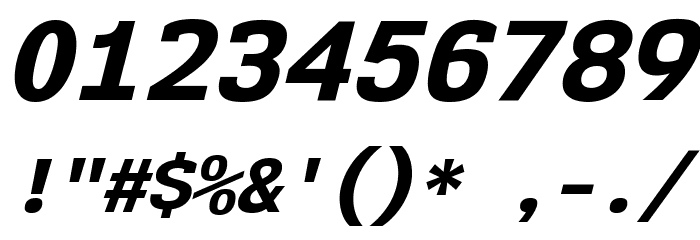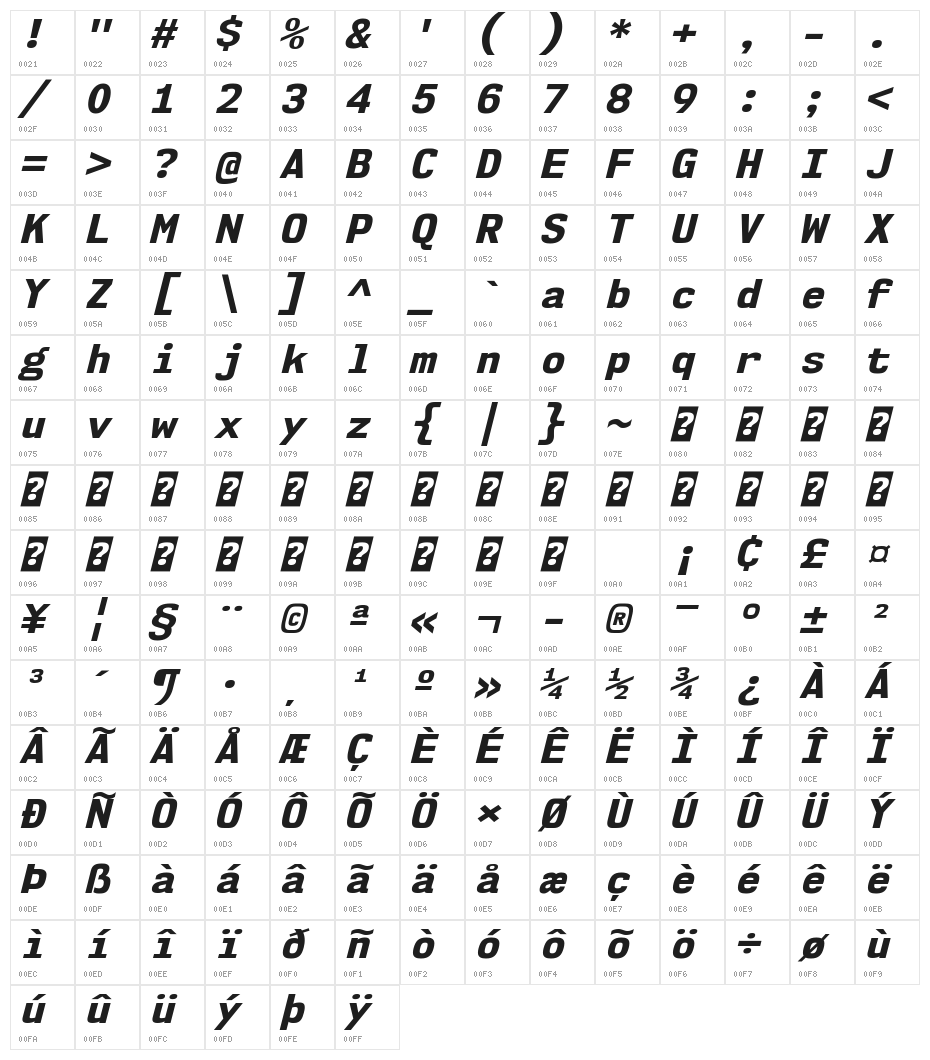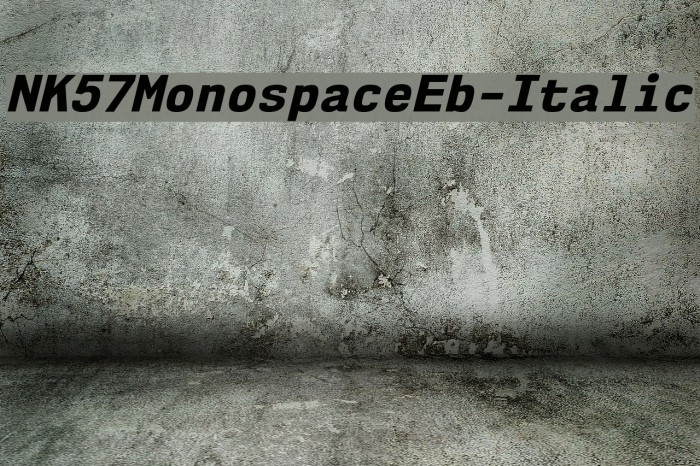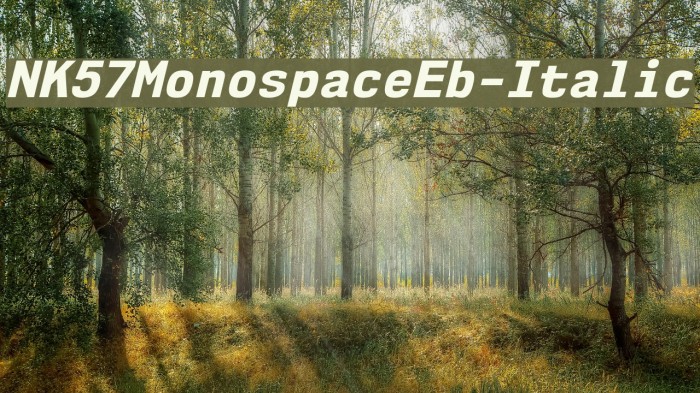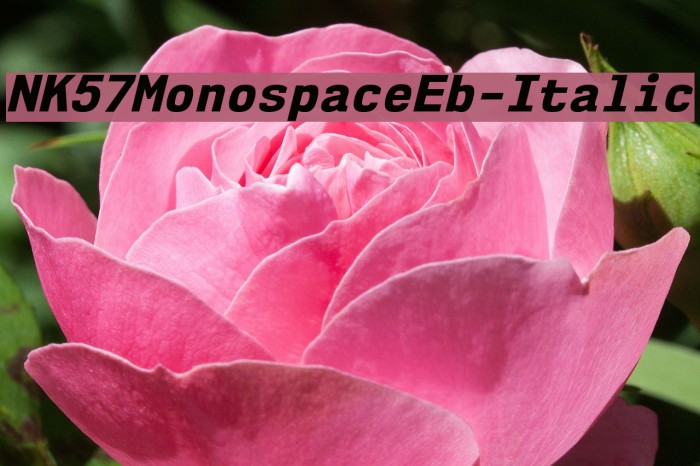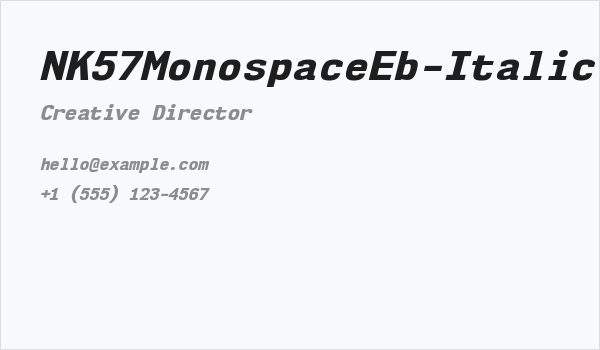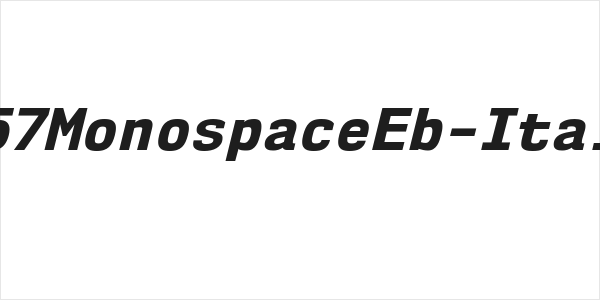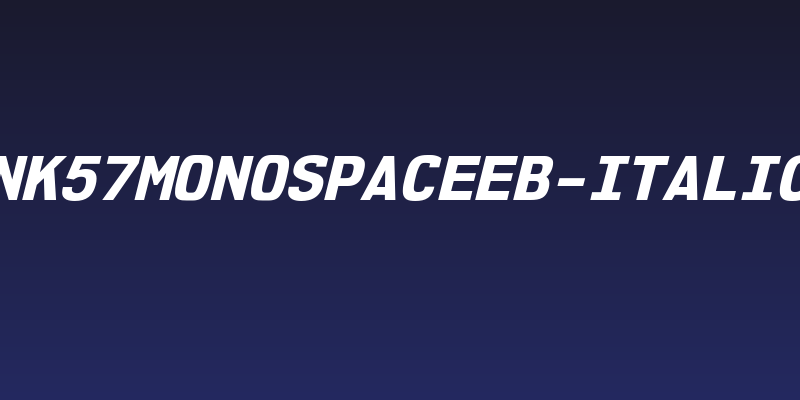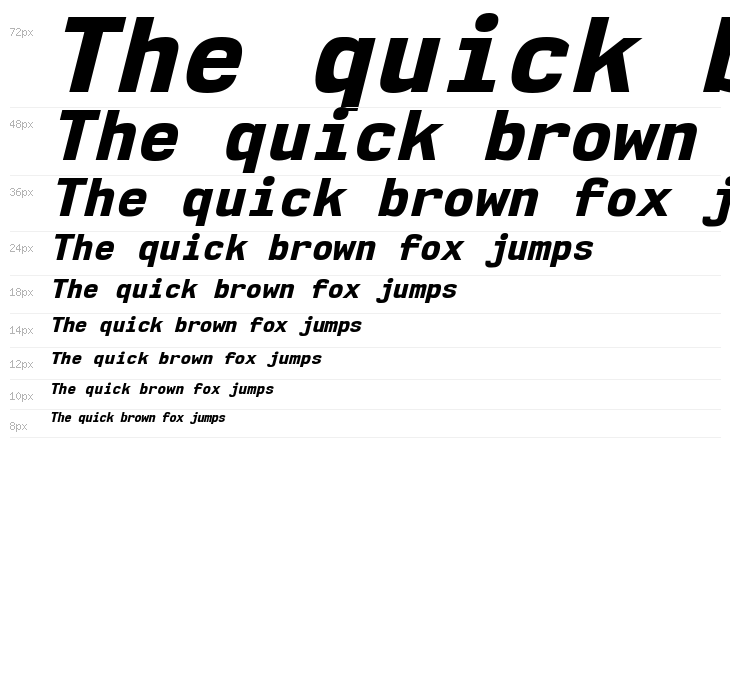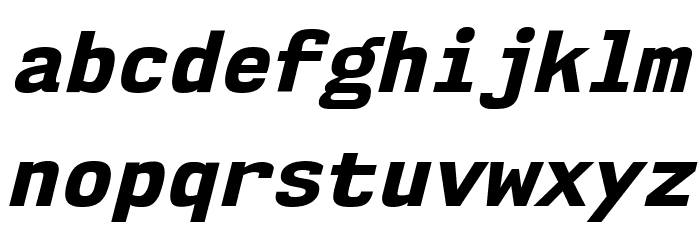
NK57MonospaceEb-Italic Font
NK57MonospaceEb-Italic Description
This font exhibits a strong, structured appearance with a monospaced design, ensuring each character occupies the same amount of horizontal space. The italic style adds a dynamic and forward-leaning aspect, enhancing its modern and technical feel. The bold weight contributes to its robust and impactful presence, making it suitable for attention-grabbing applications. The characters are well-defined with a consistent stroke width, providing a clean and organized look. The spacing between characters is uniform, which is characteristic of monospaced fonts, ensuring readability and precision in alignment.
Use CaseHeadlines, Coding, Technical documents
Proposed ProjectsIdeal for coding environments, technical documents, and design projects requiring a modern, structured typeface.